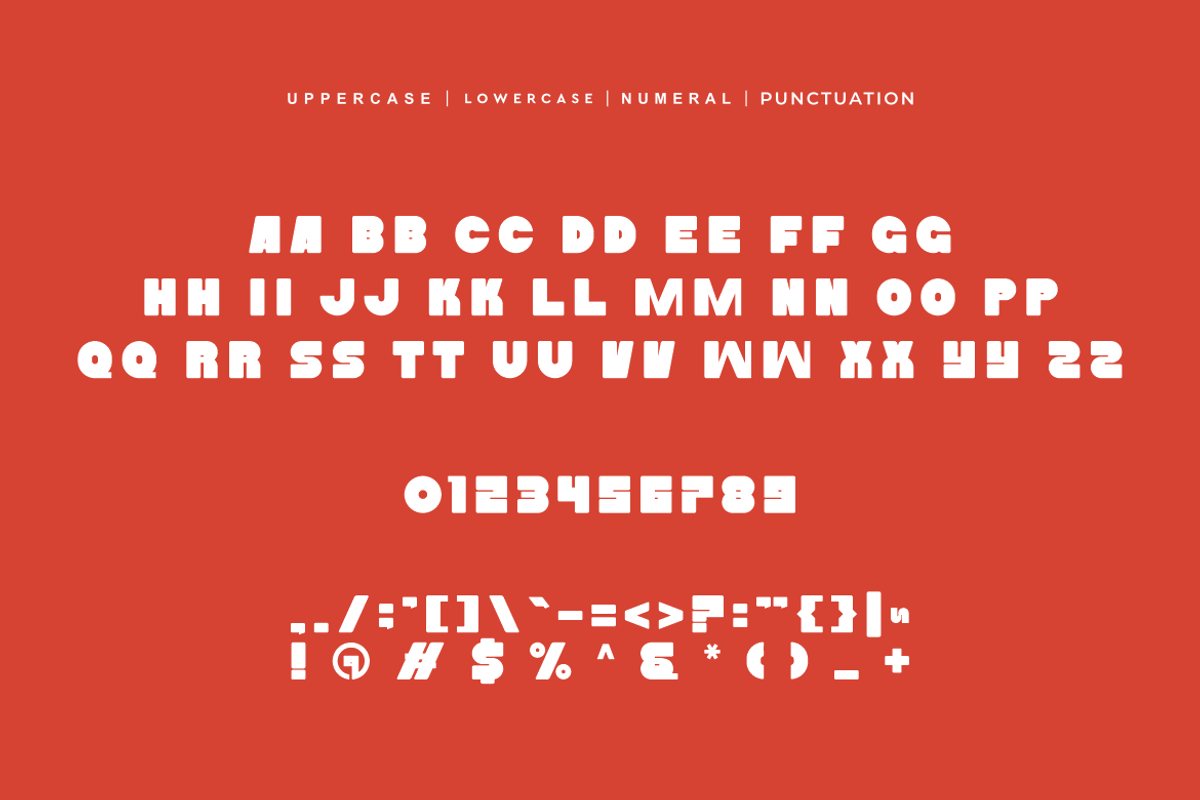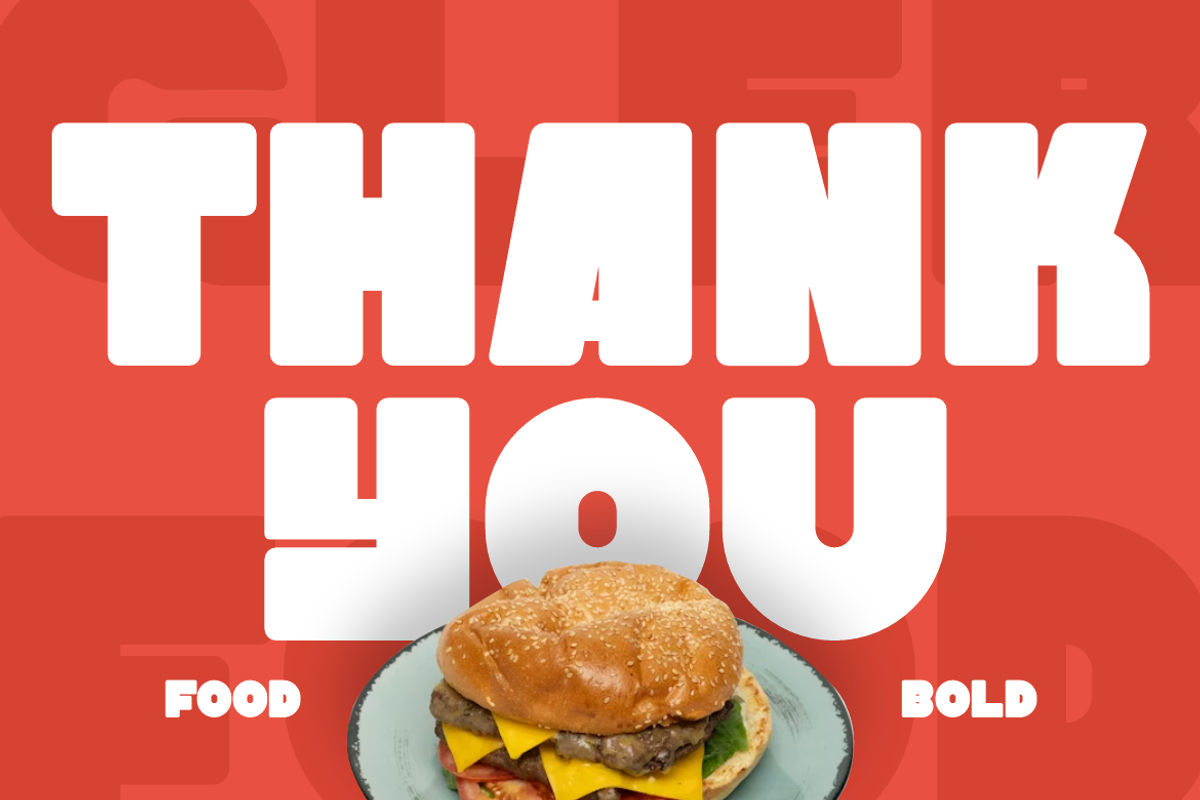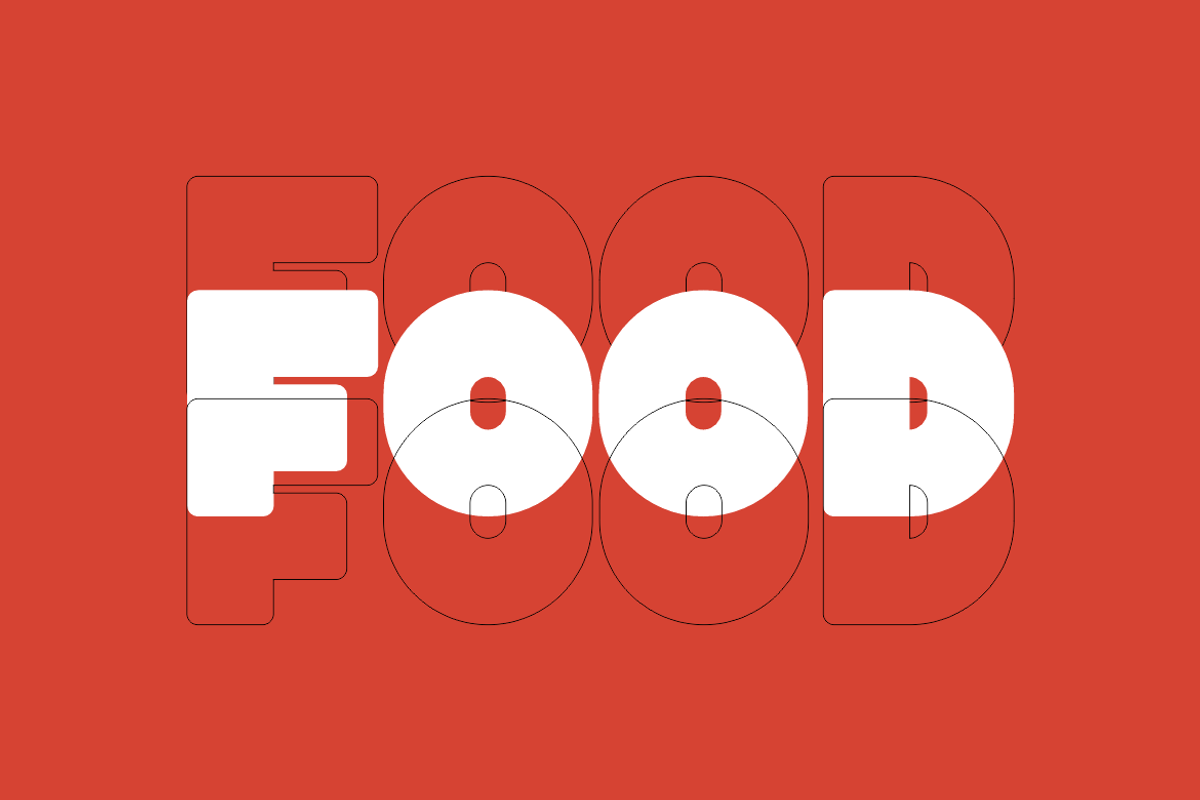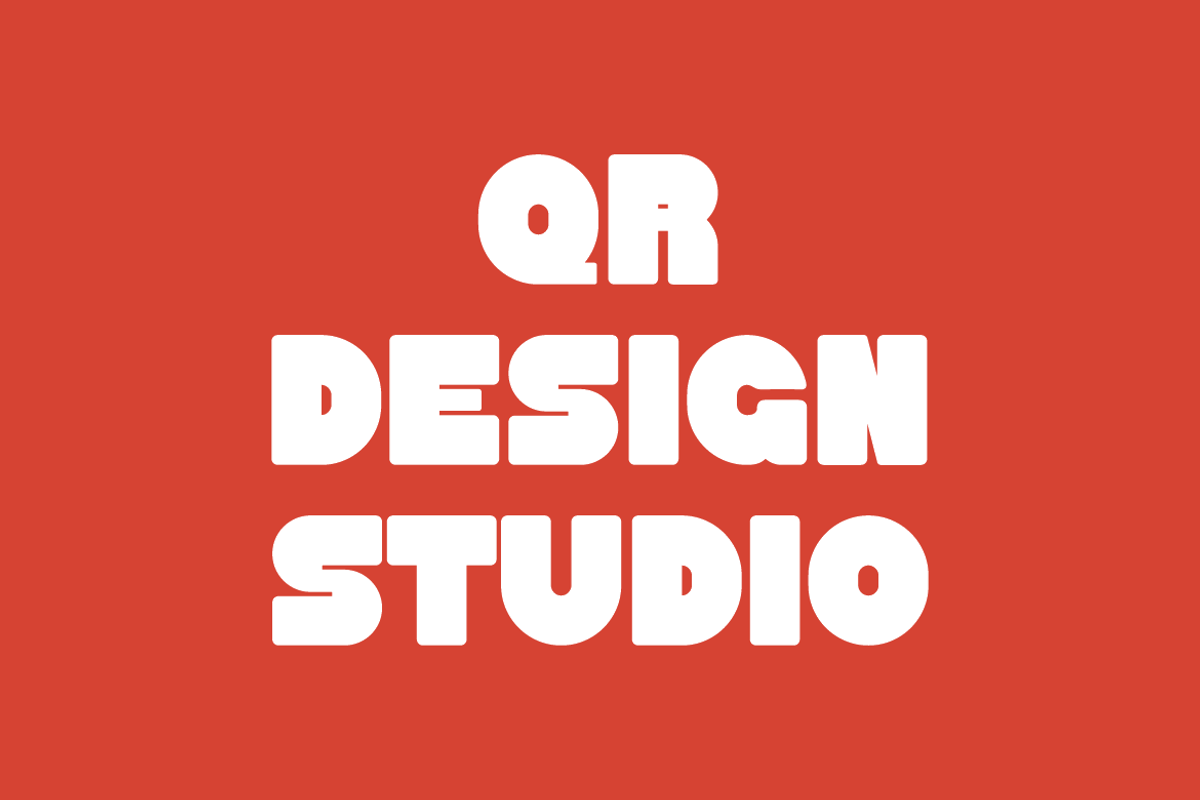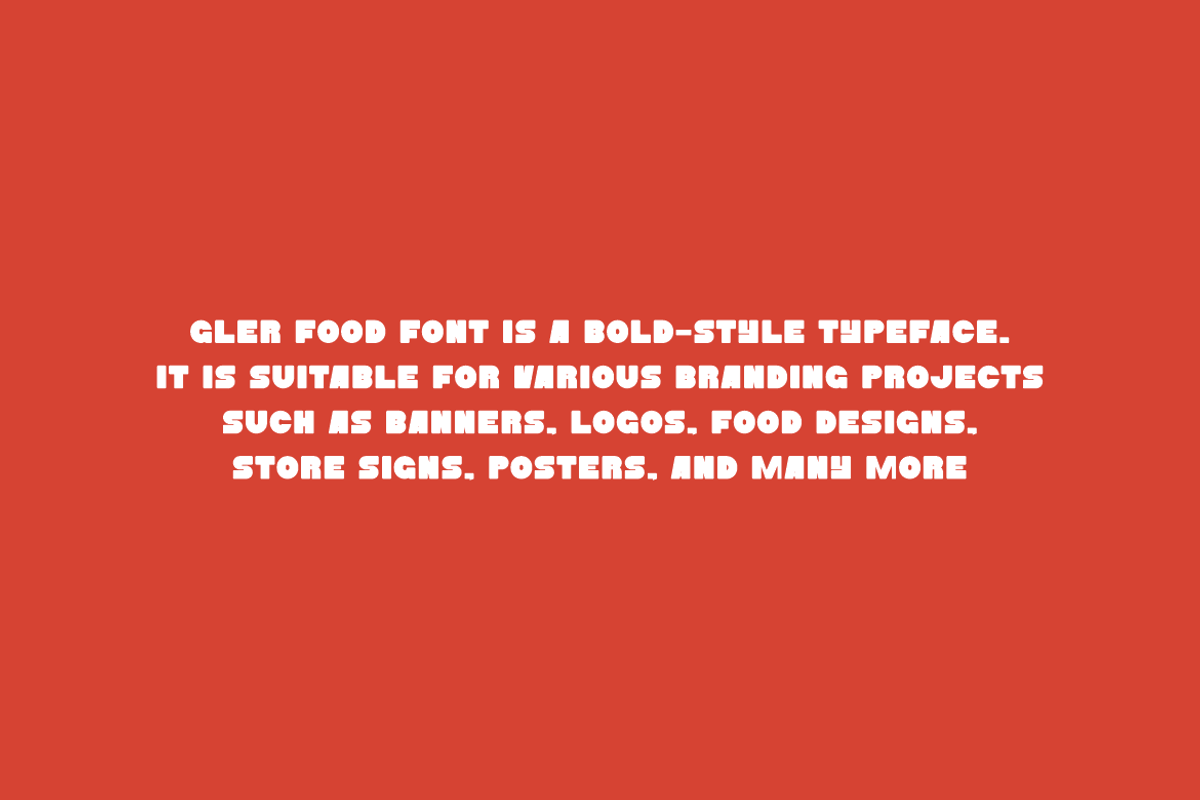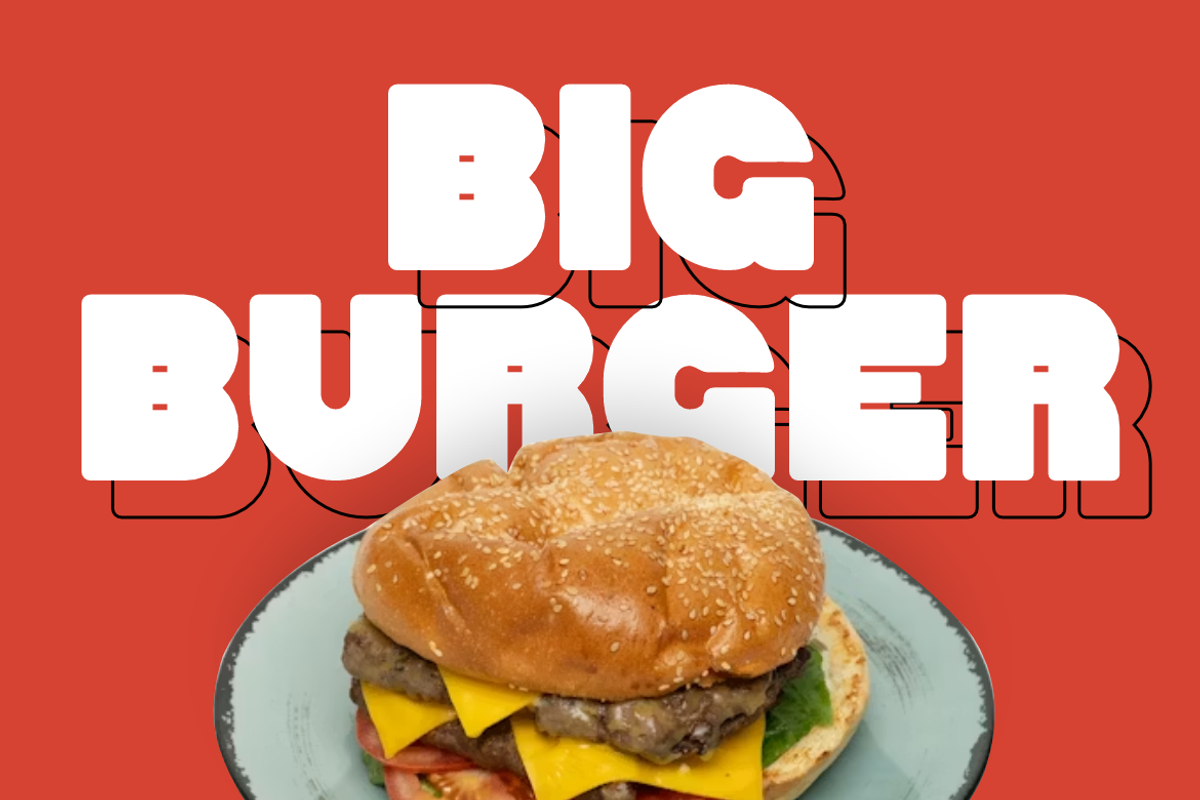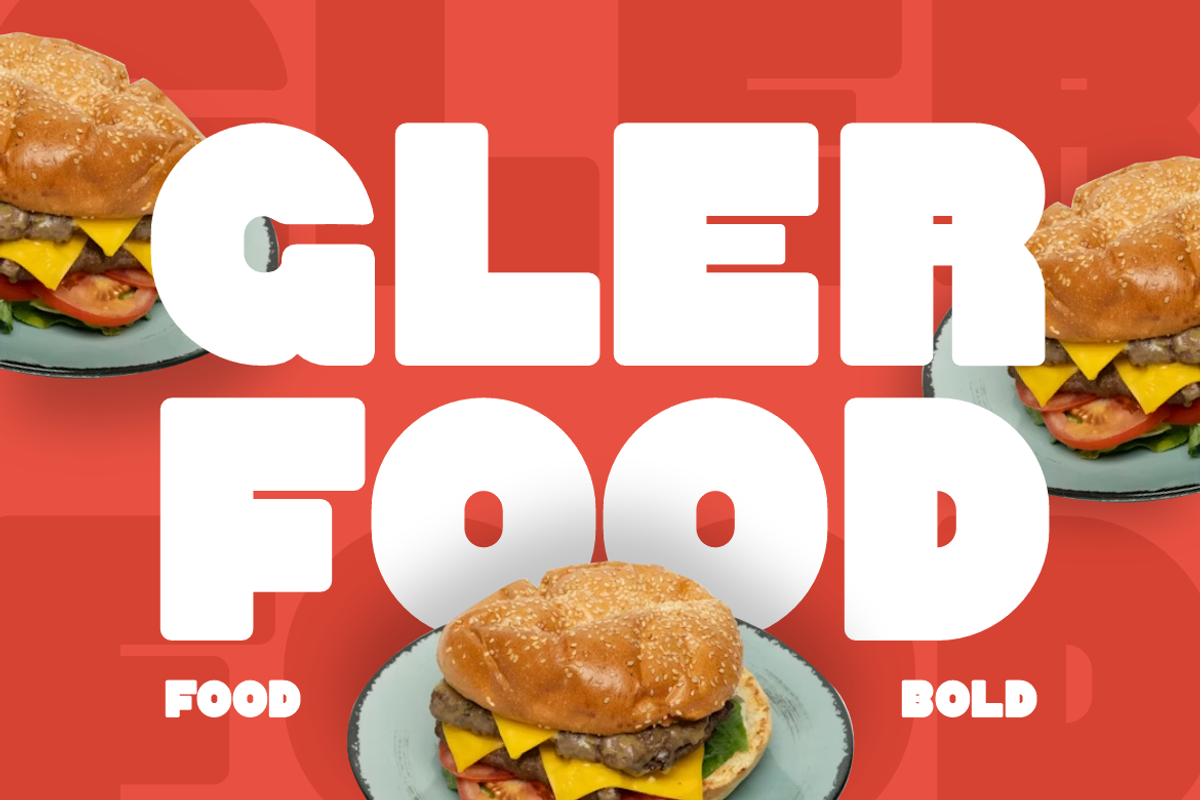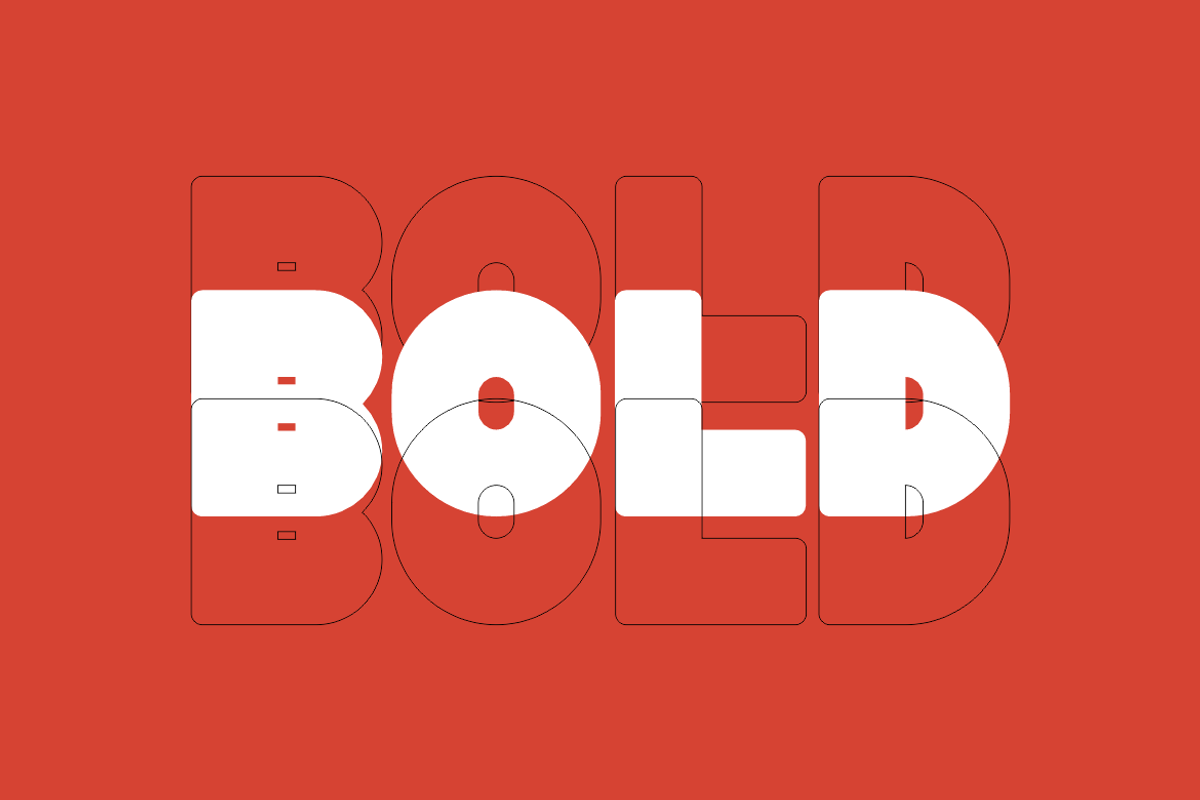
Gler Food Display Font
Gler Food Font is a bold and authentic display typeface.
It’s perfect for various branding projects such as logos, food designs,
and more. This font stands out beautifully in a wide range of contexts.